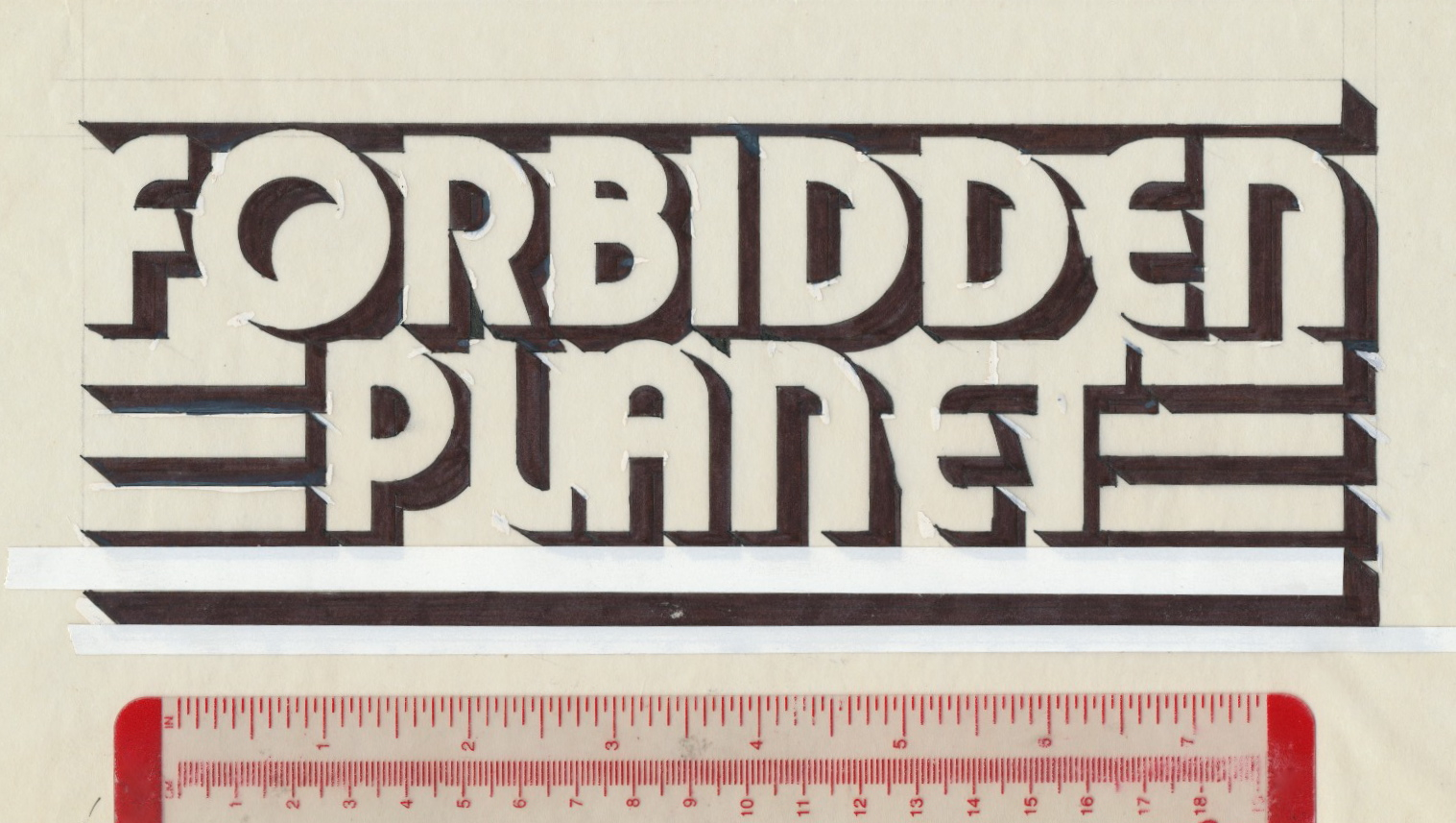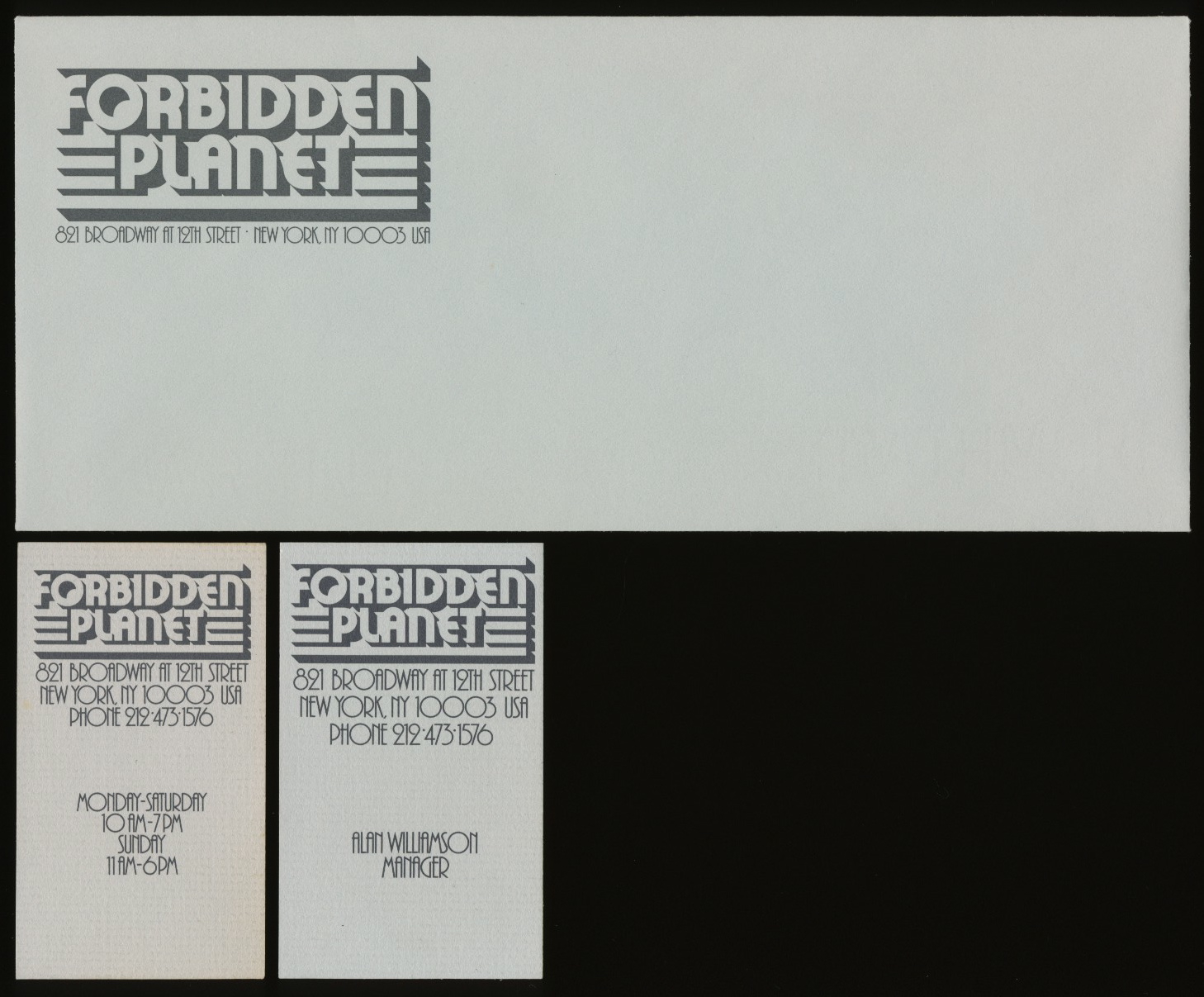
RBCC 63 (1969)
Southwestern Con
RBCC 63 (1969)
The 1969 Comic Art Convention
Luncheon Photo
Anatomy of a Logo: Forbidden Planet, Part 1
In 1982 at the Seagate office, Phil Seuling introduced me
to Mike Luckman, who asked for a new logo design.
from the Photo-Lettering One Line Manual
of Styles for the word “Forbidden”.
Marker rendering of the logo
Letterhead comp
A font from the LetraSet Plaza family
Alterations to the letters F, R, B, E L and N
Marker rendering of the logo
Letterhead comp
Art in India ink on 2-ply plate-finished bristol board;
4 1/16 by 9 1/8 inches / 10.3 by 23.2 centimeters.
Letterhead